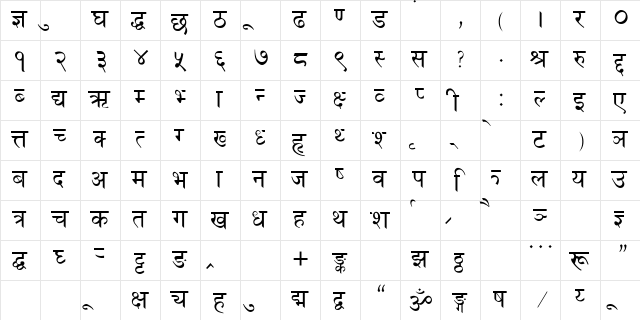
FONTASY_HIMALI_TT NORMAL
Design Context for FONTASY_HIMALI_TT Typeface
FONTASY_HIMALI_TT is a composed and adaptable typeface that performs quietly and consistently across a wide range of design contexts.